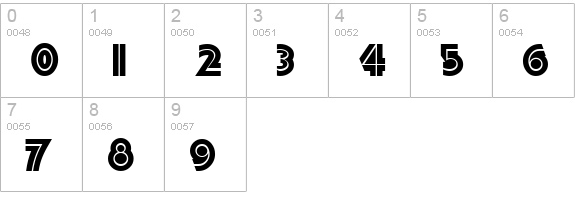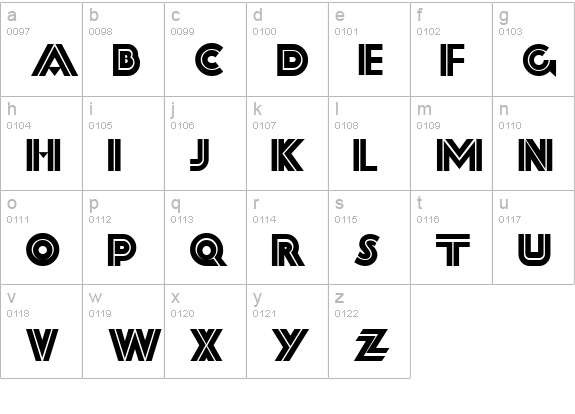
FortySecondStreetHB Font Details
FortySecondStreetHB font is a stunning display typeface that exudes a sense of elegance and sophistication. With its bold and distinctive letterforms, this font is perfect for creating eye-catching headlines, posters, and branding materials. The sleek and modern design of FortySecondStreetHB font makes it suitable for a wide range of projects, from digital designs to print materials. What makes FortySecondStreetHB font even more appealing is that it is available for free download at FontsMarket.com. This means that you can easily access this stylish font to elevate your design projects without any cost. Whether you are a professional designer or a hobbyist looking to enhance your creations, FortySecondStreetHB font is a versatile and high-quality option that will surely make your work stand out. Download it today and add a touch of sophistication to your projects!